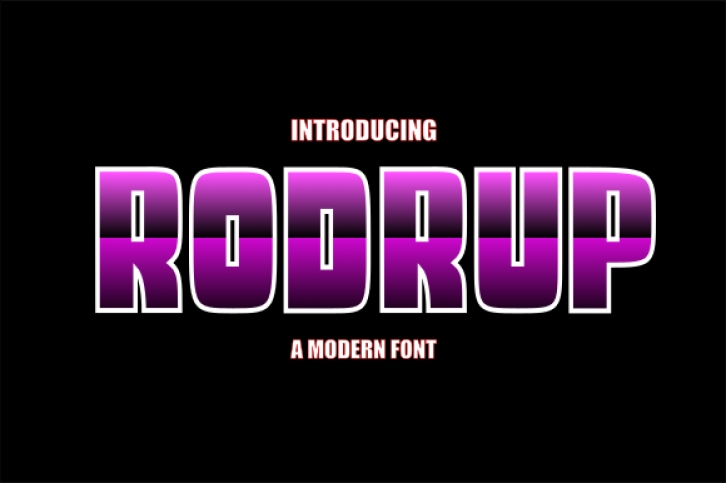
Rodrup looks bold, yet sophisticated and features chunky and extended characters that will look particularly adept when used in logos, branding, packaging design, and much more. This masterfully designed display font is a true must-have.